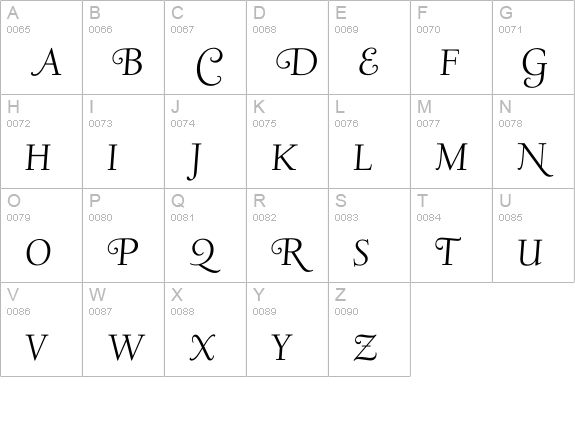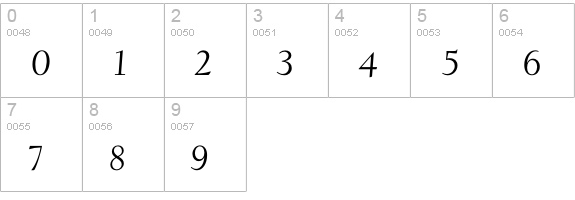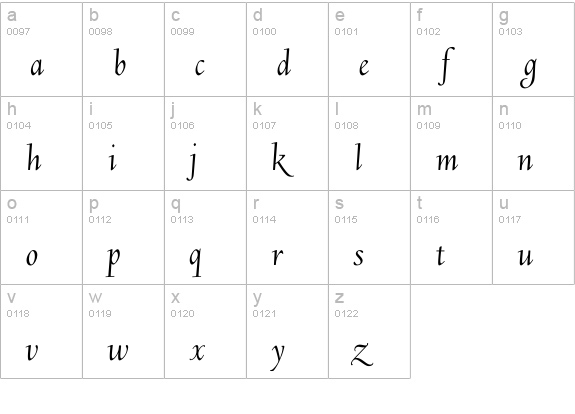
DeepdeneLW-Italic Font Details
DeepdeneLW-Italic is a distinctive, italic variant in the DeepdeneLW typeface family \xE2\x80\x94 well suited to design and typography projects.
DeepdeneLW-Italic is a stylish and elegant font that exudes sophistication and refinement. Its sleek and flowing italic design adds a touch of class to any project, making it perfect for upscale branding, wedding invitations, and editorial layouts. The graceful curves and intricate details of DeepdeneLW-Italic make it a standout choice for designers looking to elevate their work with a touch of luxury. And the best part? DeepdeneLW-Italic is completely free to download at FontsMarket.com. This means you can easily add this high-quality font to your collection without breaking the bank. Don't miss out on the opportunity to enhance your designs with this stunning typeface - download DeepdeneLW-Italic today and take your projects to the next level.